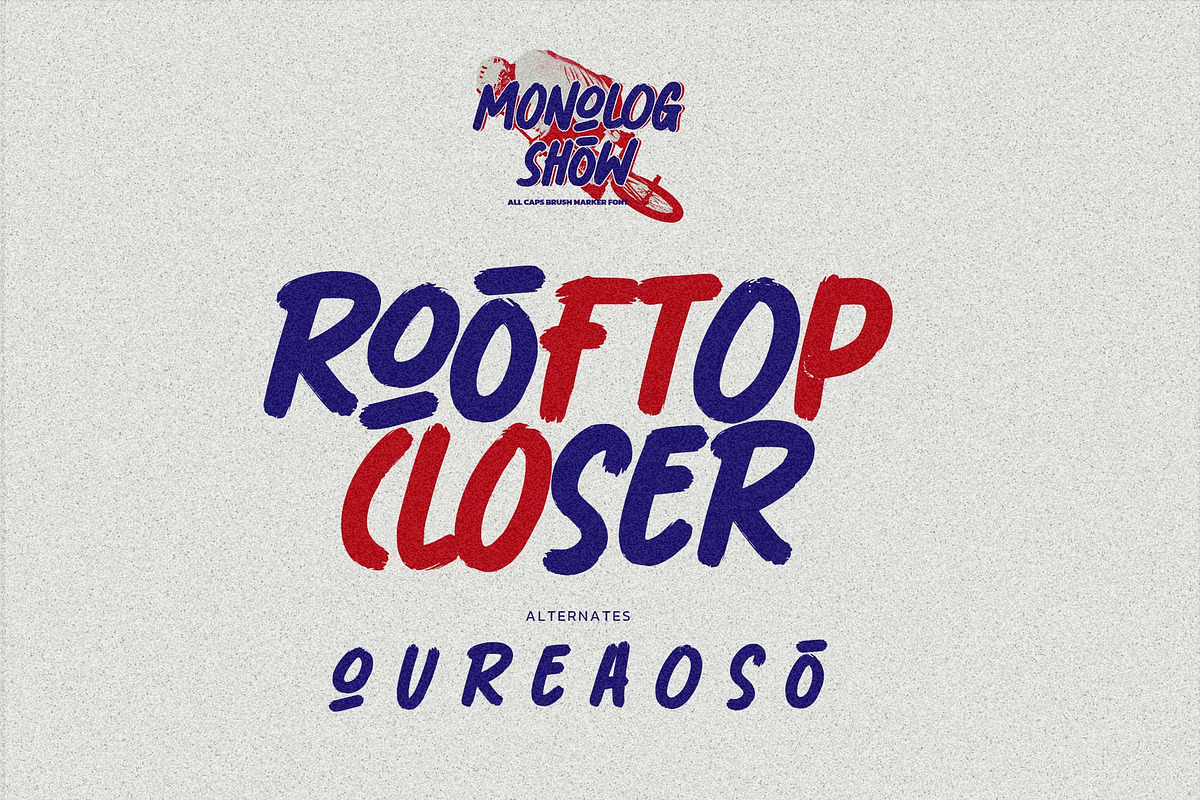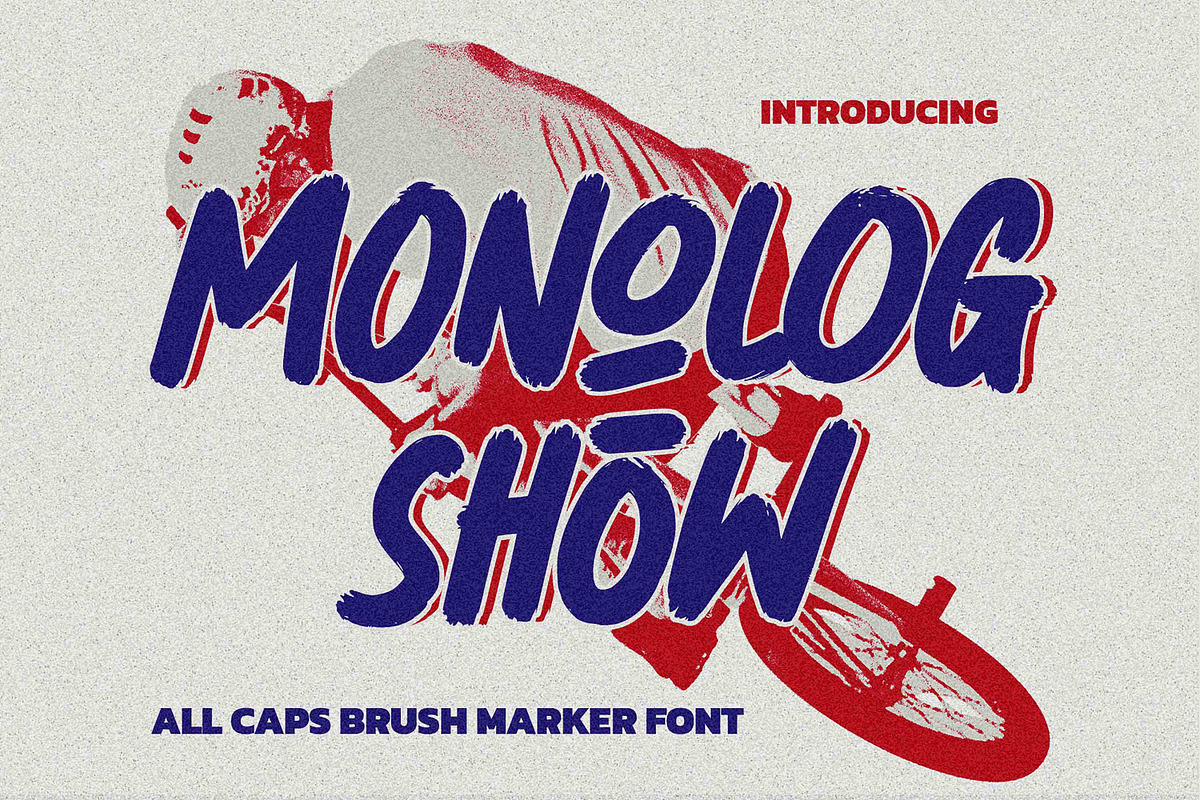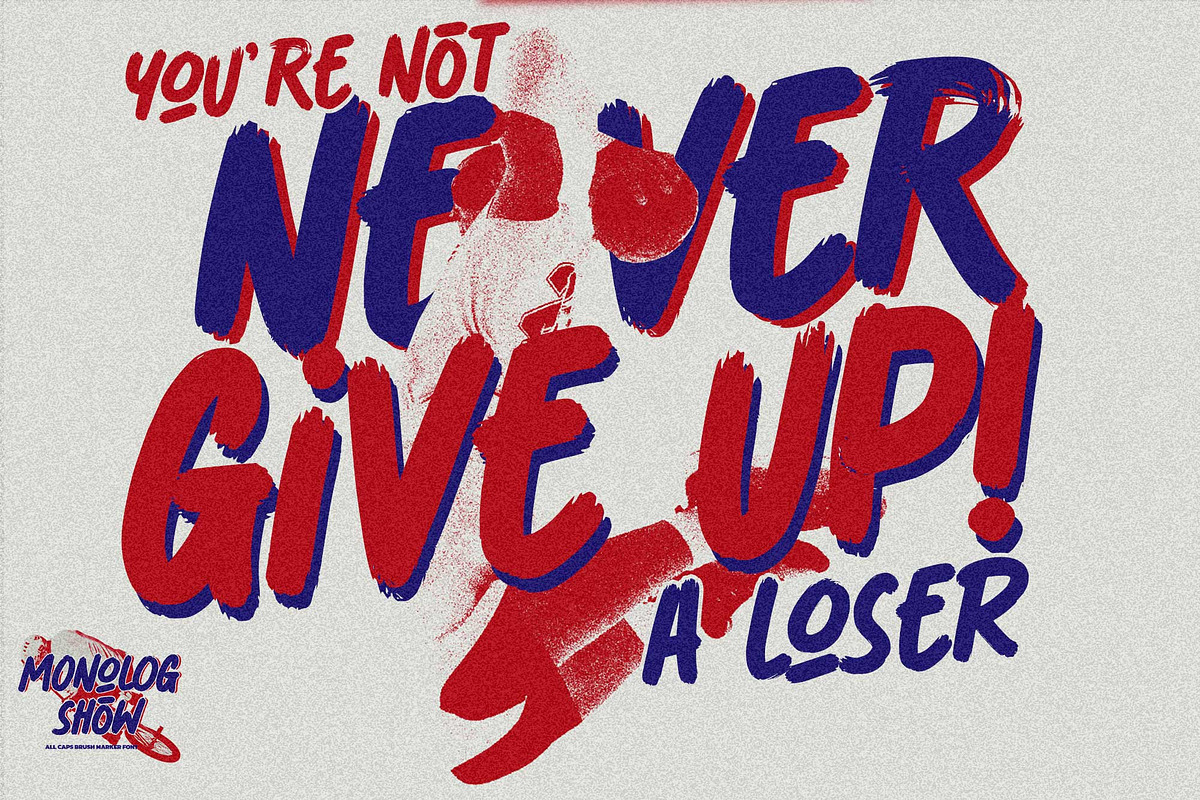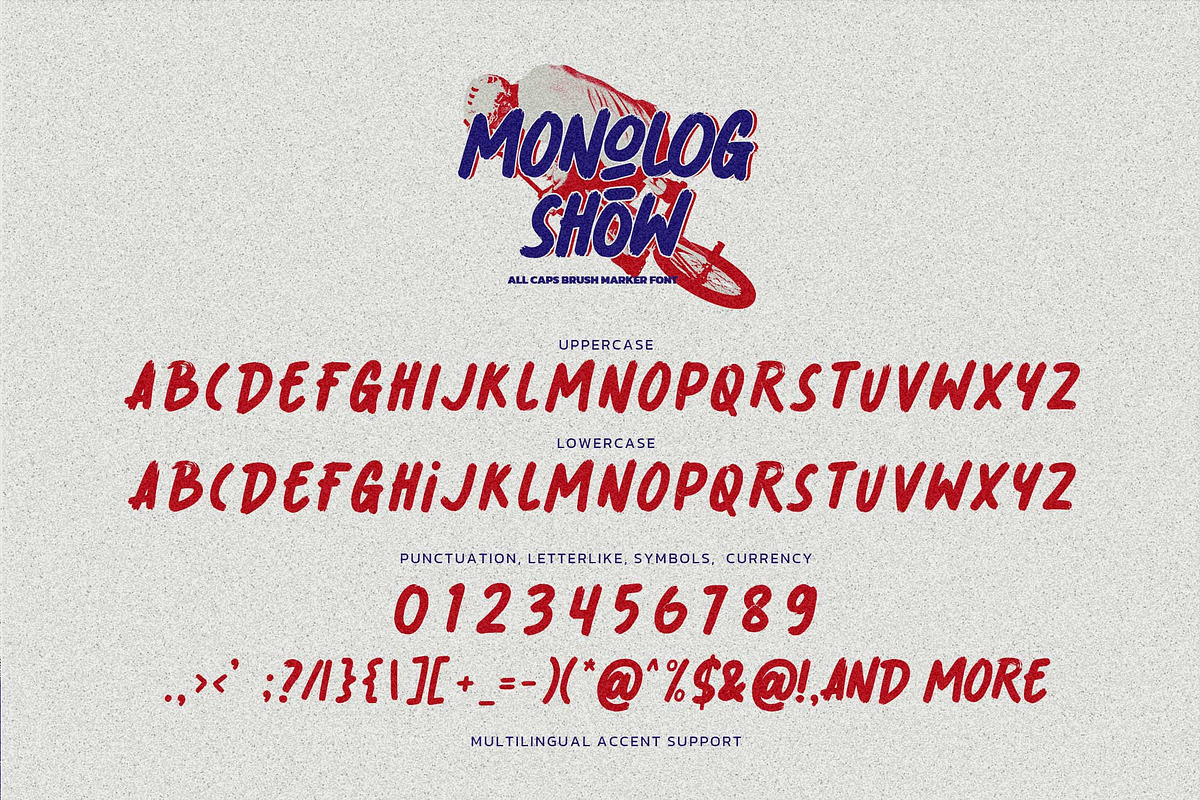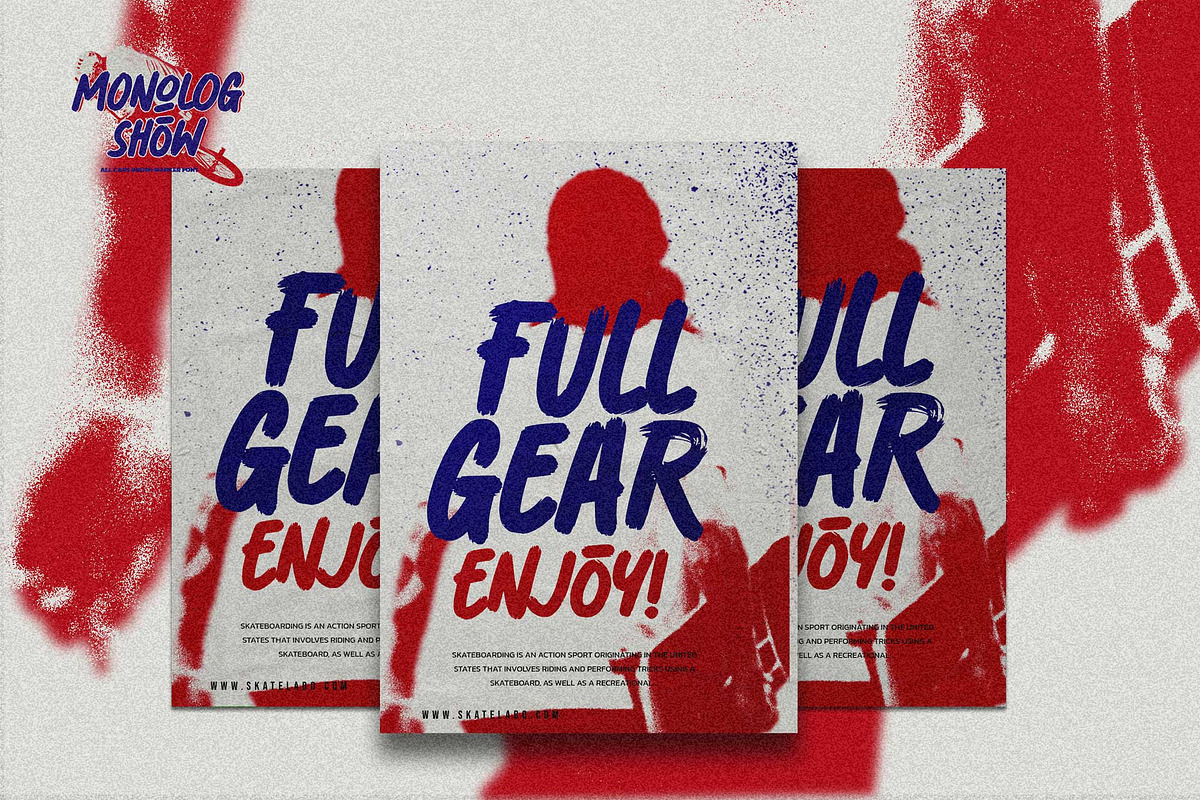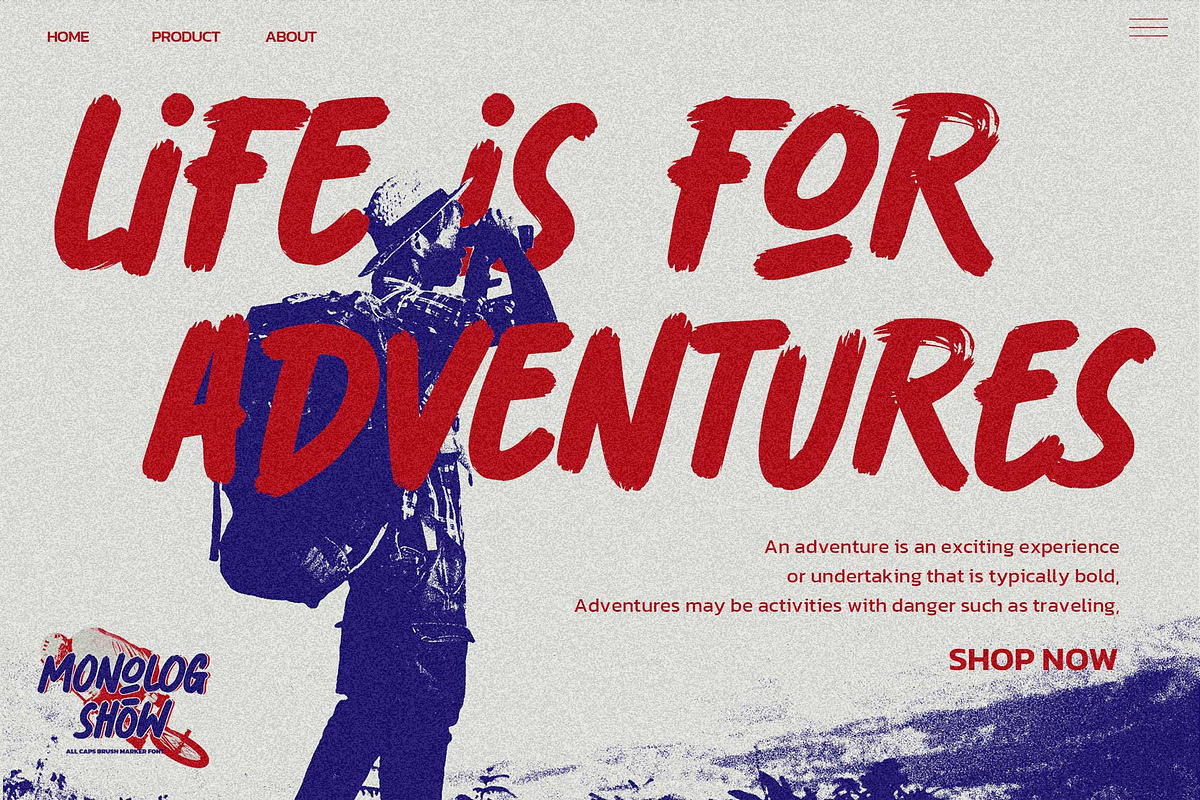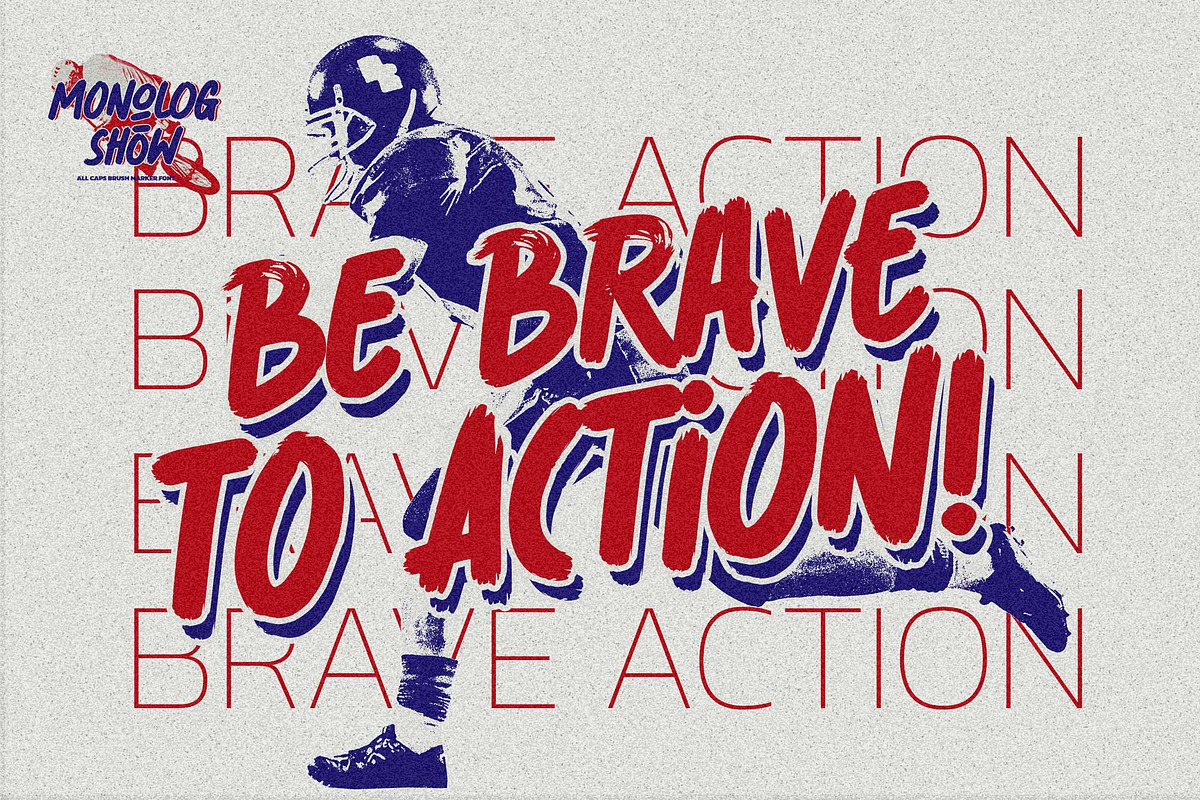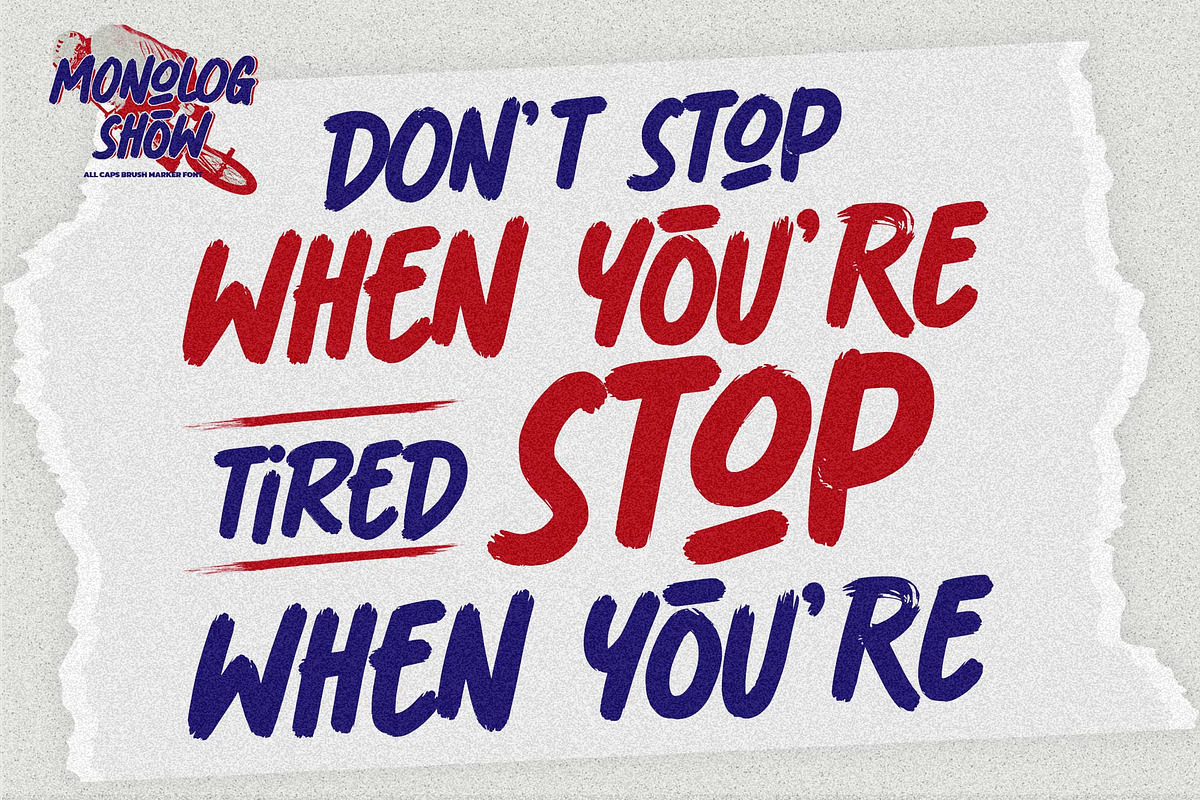
Monolog Show – All Caps Brush Marker
MONOLOG SHOW is a bold, high-energy brush marker typeface crafted for designs that demand power, motion, and attitude. With rough edges, dynamic strokes, and an authentic hand-drawn feel, this font brings an instant burst of intensity to any visual project.
Designed to capture raw urban expression, MONOLOG SHOW delivers a fast, aggressive look—perfect for compositions that need a loud, sporty, and rebellious edge. Each letter is charged with movement, making it ideal for impactful headlines and attention-grabbing layouts.
Great For
• extreme sports posters • urban branding & logos • streetwear & merchandise • album covers & promo art • bold editorial titles • social media visuals • event flyers & action-themed graphics
Style & Feel
bold • brush • fast • gritty • energetic • urban • expressive